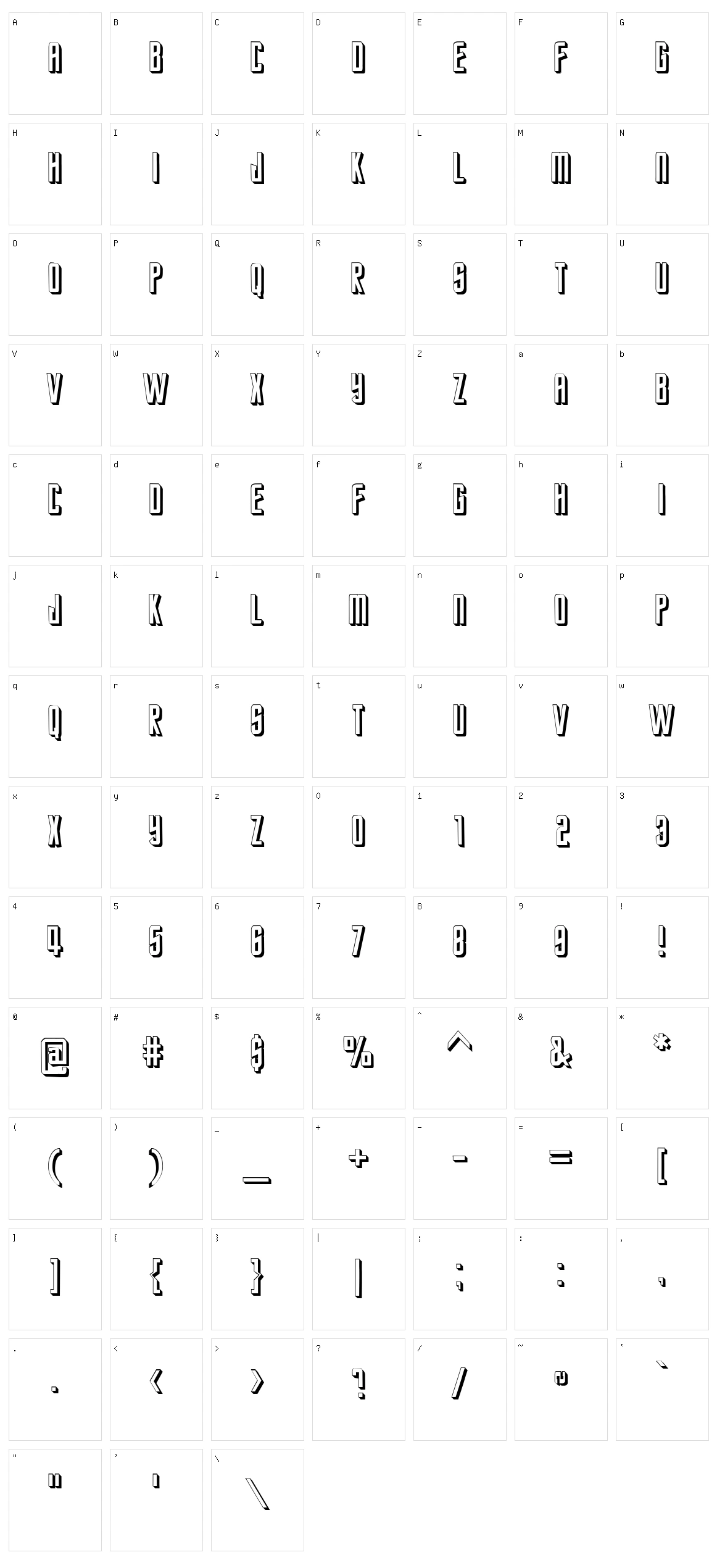
Star Trek Future
Designed by: Alphabet&Type®
x STAR TREK Enterprise FutureFONT x
x from movie direct by J.J. ABRAMS x x
Font name: STAR TREK Enterprise-Future - Latin Decorative font (versione 1.0)
Type designer: P. A. Vannucci (Font Lab Studio 5.0)
Spazio. Ultima Frontiera.Direttamente dalla saga televisiva più popolare, il font originale
riproposto
nel film capolavoro di J.J. Abrams.
Space. Last Frontier.Directly from most famous tv-saga, the original font reproposed in the
film capolavoro of J.J. Abrams.